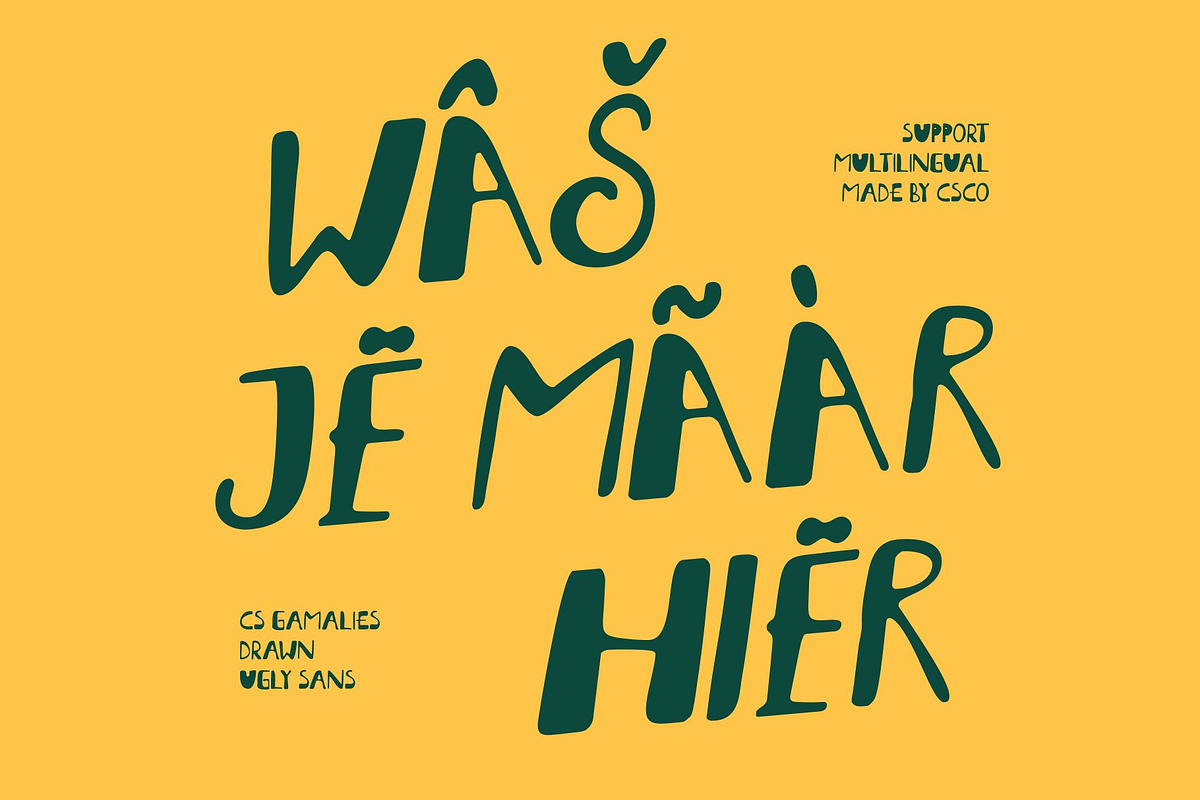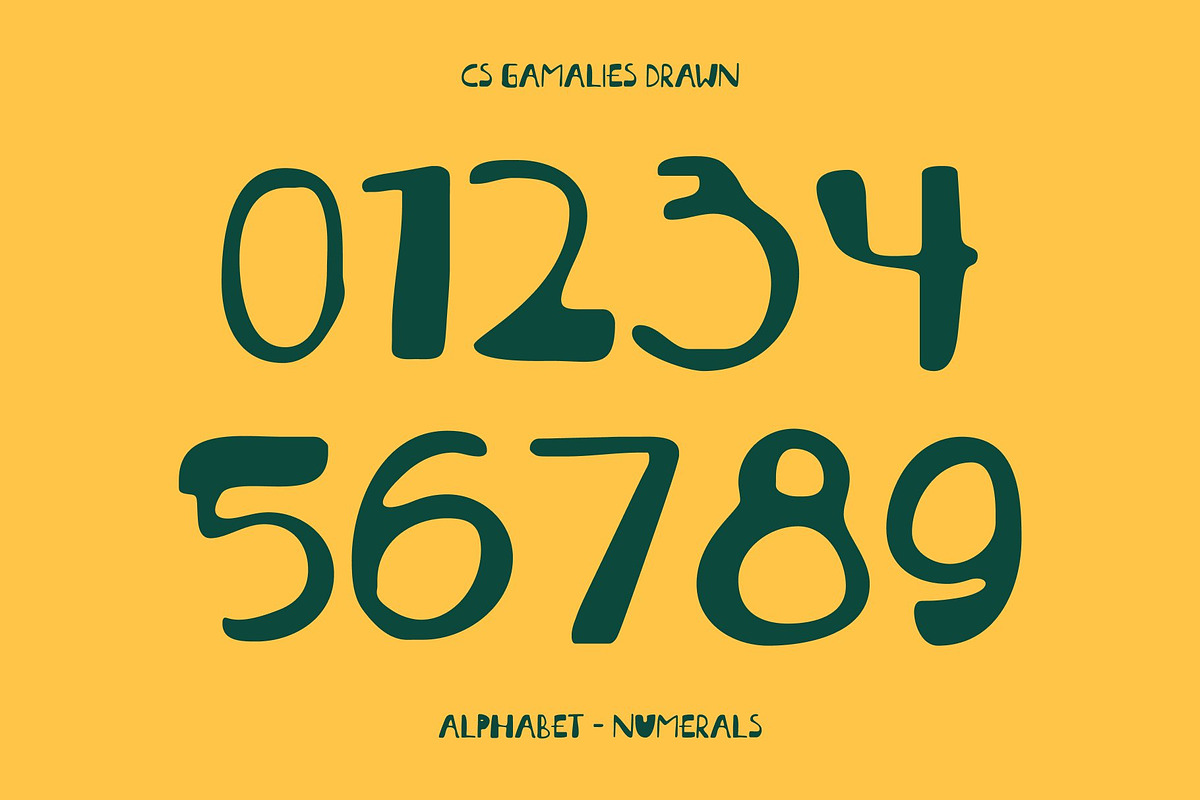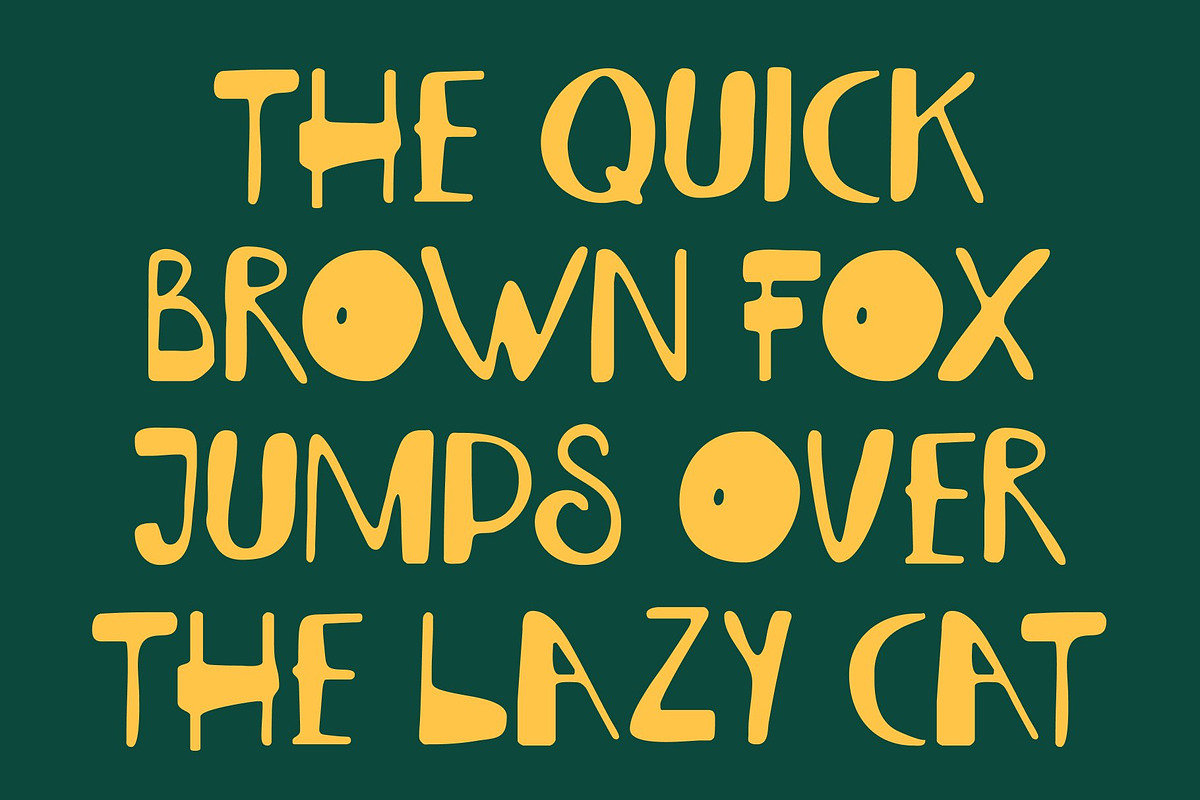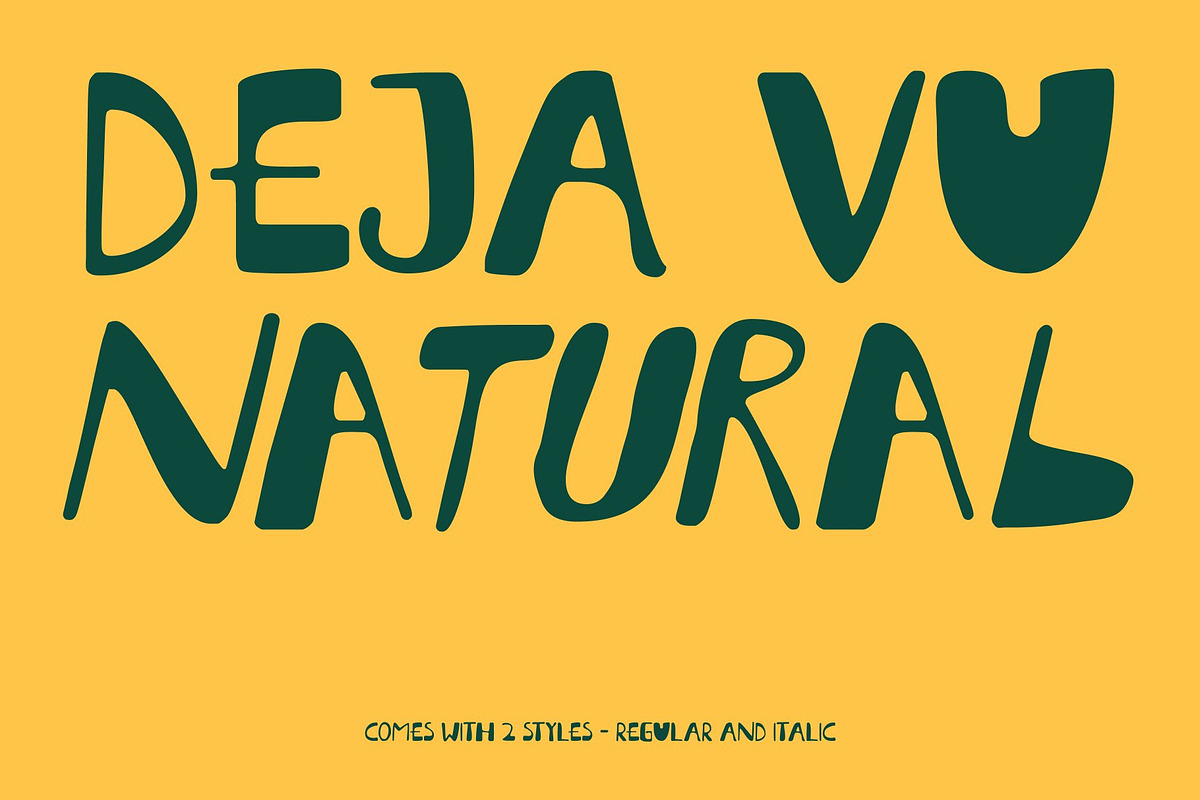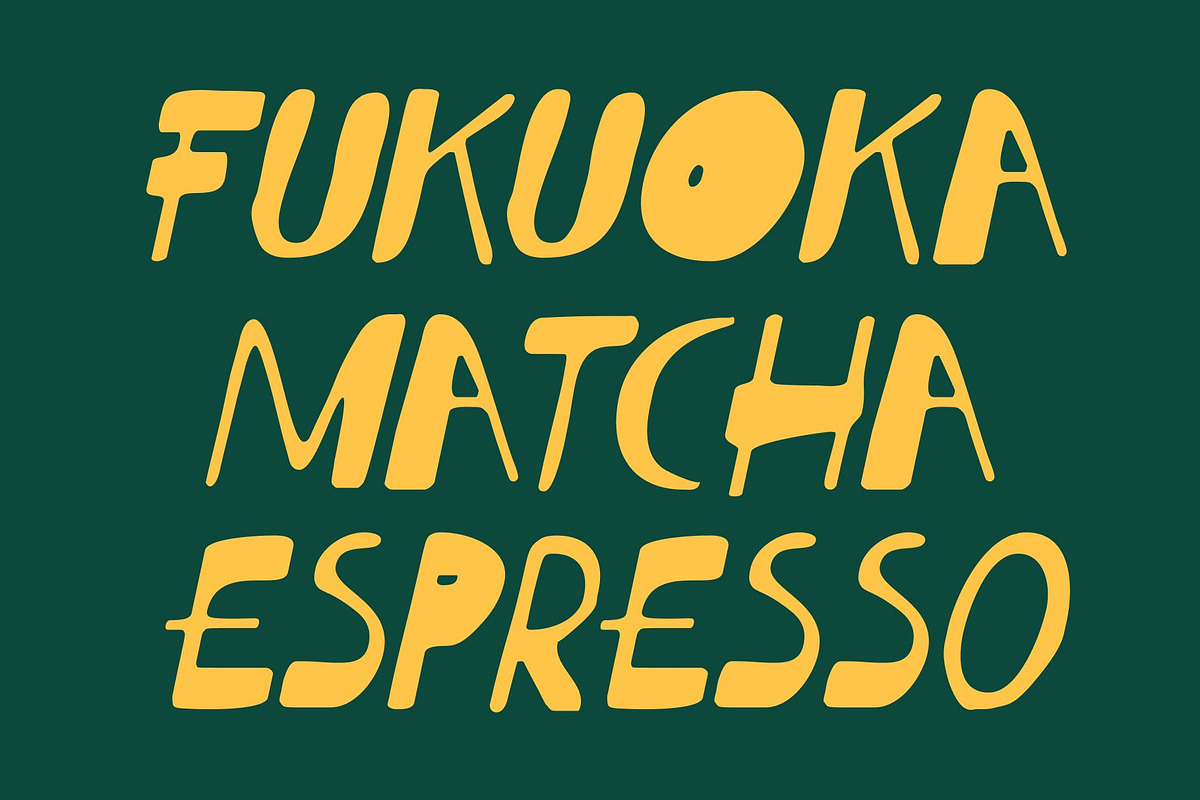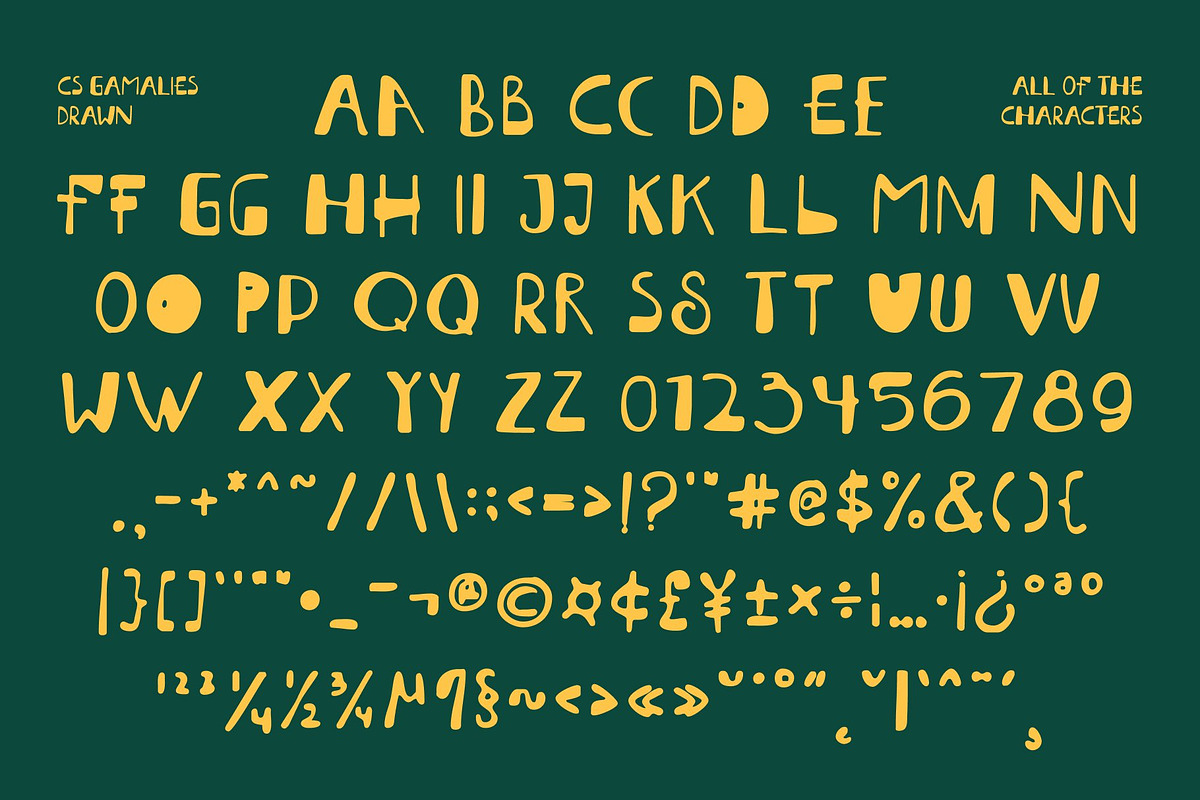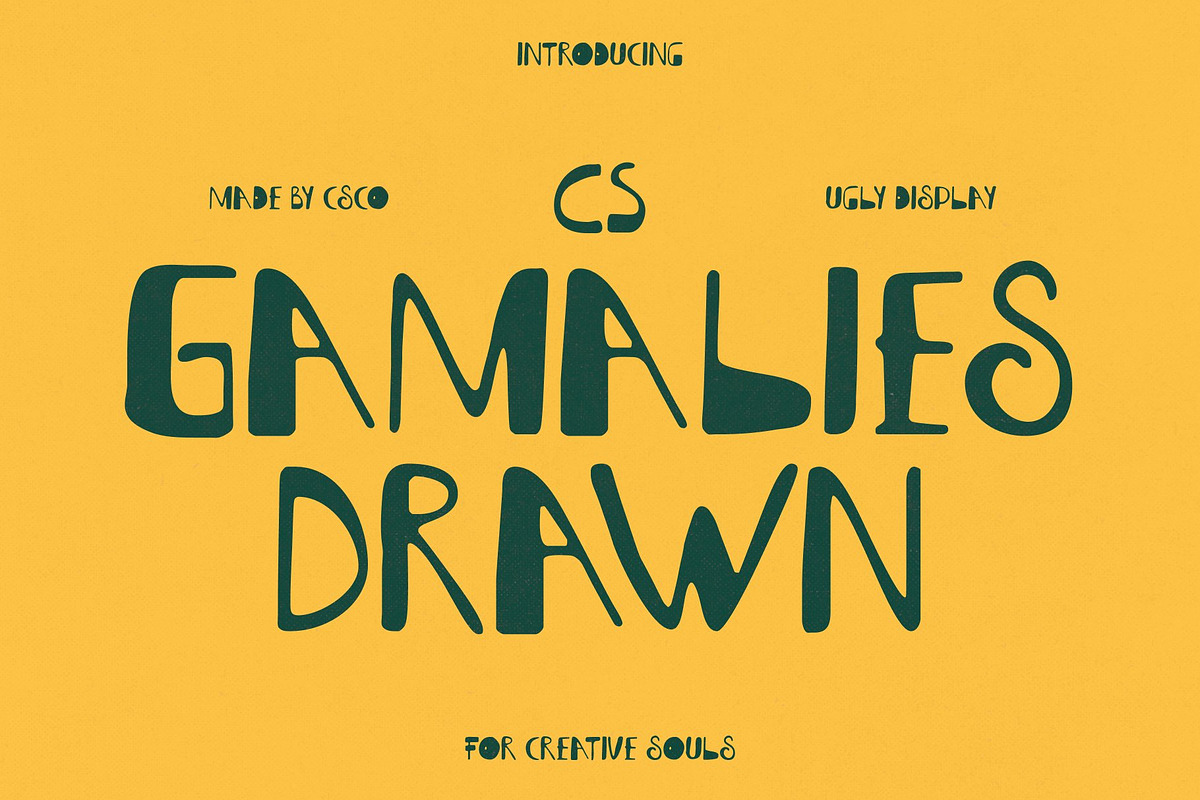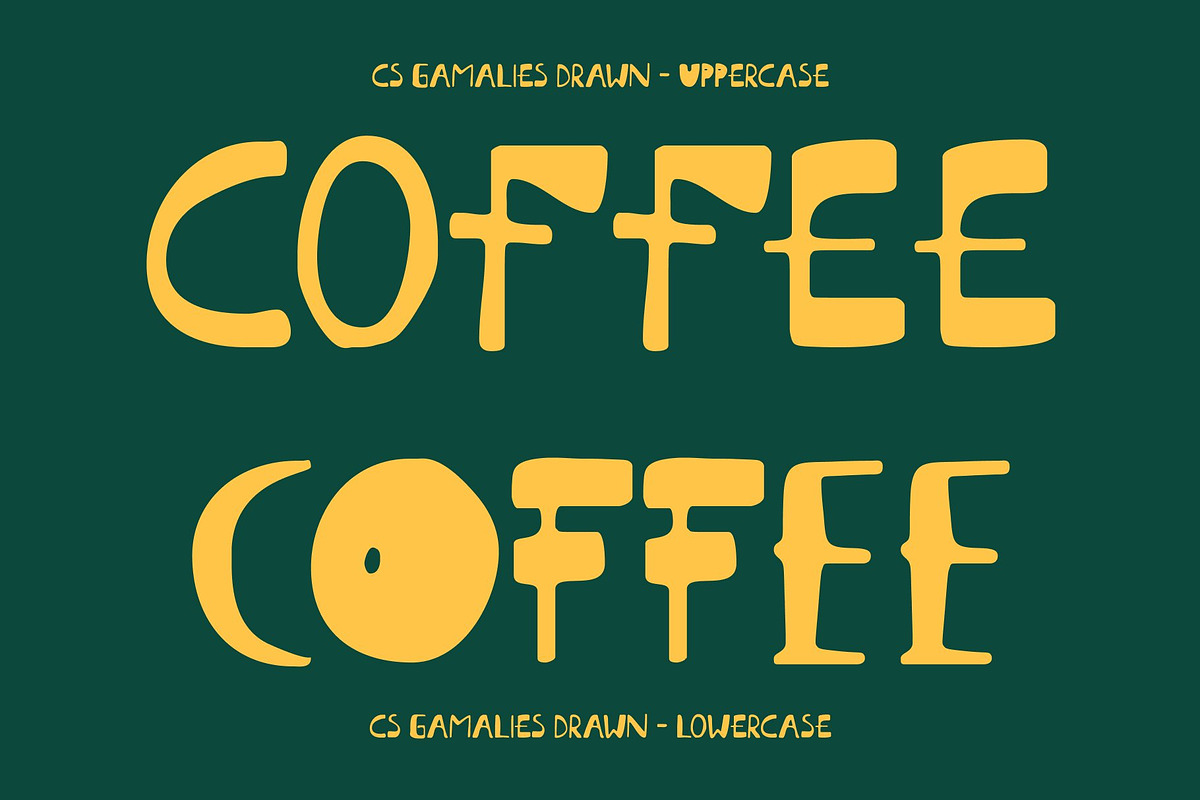
CS Gamalies Drawn
CS Gamalies Drawn – Playfully Ugly Display Font with Bold, Energetic Character
Ugly Style Reimagined with Playful Energy This is an ugly display font that proudly embraces imperfection. Built with quirky proportions, uneven strokes, and expressive shapes, it turns irregularity into a bold design statement. The result is a font that feels fun, rebellious, and full of youthful energy perfect for designers who want to break away from clean and predictable typography.
Raw Hand-Drawn Strokes with Lively Personality The hand-drawn texture gives this font a raw, spontaneous look, as if each letter was sketched freely without rules. Its messy, irregular strokes inject motion and excitement into every word, creating typography that feels alive, playful, and unapologetically bold.
Friendly Forms with Chaotic Charm Despite its “ugly” concept, this font remains approachable and friendly. Rounded elements and soft curves balance the chaotic structure, creating a joyful visual rhythm that feels imaginative rather than harsh. This contrast makes the font especially appealing for lighthearted and creative themes.
Perfect for Youthful, Fun, and Creative Projects Ideal for youth branding, children’s designs, playful posters, packaging, bold logos, and energetic visual identities, this font brings chaotic charm and expressive creativity to any project. It’s the perfect choice when your design needs to feel loud, fun, and full of personality.